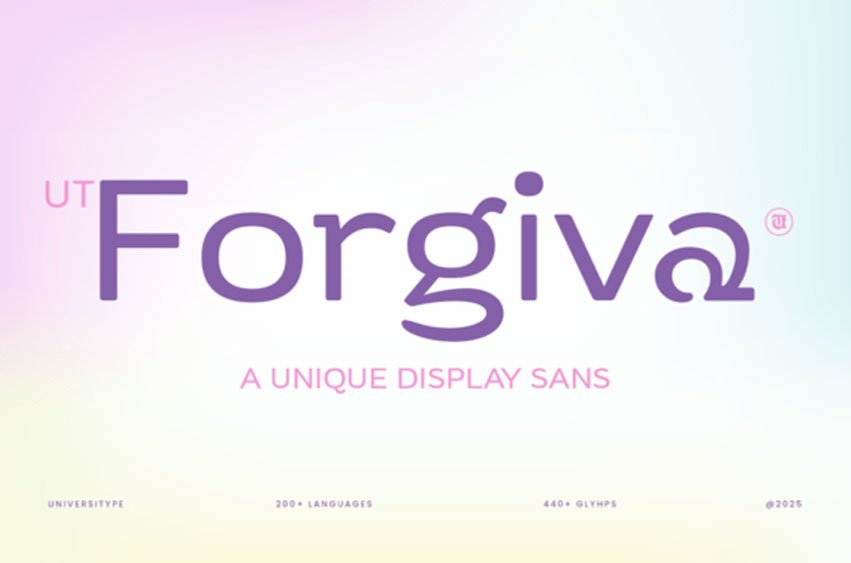
Ut Forgiva Font is a perfect blend of modern sophistication and comforting serenity. Imbued with gently curved lines, rounded terminals, and a rhythmic consistency, Forgiva punctuates your text with warmth and visual harmony. With each character comfortably sitting with an air of quiet confidence, Forgiva evokes an encompassing sense of ease and allure.
If you are looking to mold an inviting brand, design friendly product packaging, or curate a clean digital interface, Forgiva complements your ideas, infusing a hint of optimism and delight. This font is the go-to for designers seeking to incorporate kindness into their typographic compositions.
Forgiva harmonizes perfectly with a broad spectrum from lifestyle brands, to stationery and packaging creators, UI/UX designers, wellness brands, educators, children’s products, and learning content creators. Unmistakably modern yet irresistibly soft, Forgiva is the epitome of a font that effuses a human touch and warm visual elegance.
The key features of Forgiva encompass soft, modular curves that confer a friendly, welcome feel, alongside rounded terminals which inject character and relatability. Well-defined vertical rhythm ensures a clean, regular layout, while unique characters like a, g, r, v, provide a captivating flair to your branding. Supporting over 200 languages, the font offers an extensive glyph range, meticulously crafted for versatility. A balanced representation of uppercase and lowercase enables easy readability in both display and short text. As a bonus, a comprehensive numeral set including super/subscripts, denominators, and scientific inferiors is part of the package.
Forgiva originated from a desire for gentle, clear communication, effortlessly merging handwritten warmth with modern precision. Its visually soothing corners, balanced proportions, and expressive alternates encapsulate a warmth that is endearing without being cartoonish. Exuding modern elegance with heart, Forgiva was designed with an affinity for creators who appreciate a sprinkle of sentimentality in their typography.
Maximize Forgiva’s potential in branding and identity projects, appealing product packaging, lifestyle or wellness posters, minimalist stationery, contemporary editorial spreads, streamlined app interfaces, menus, gift cards, shop signage and more. The font shines brightly in large sizes, headlines, and logotypes – whenever and wherever you desire inviting character with minimalistic charm.